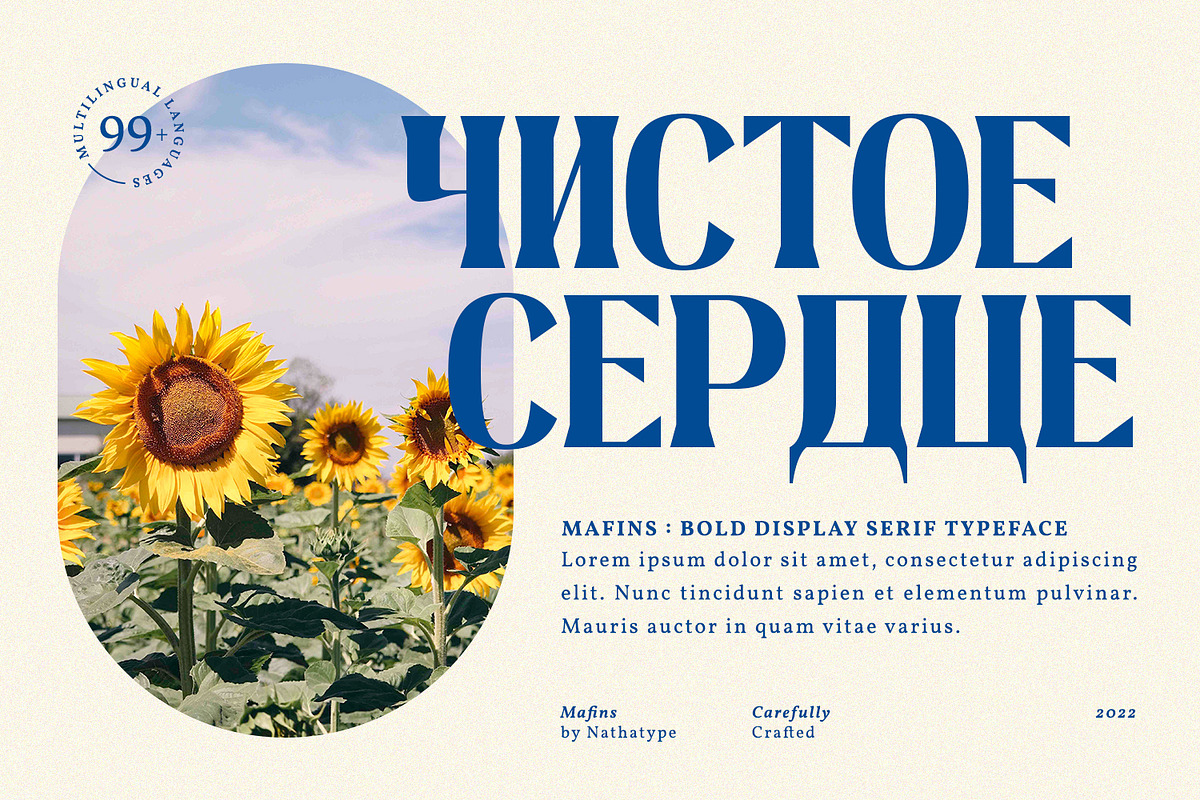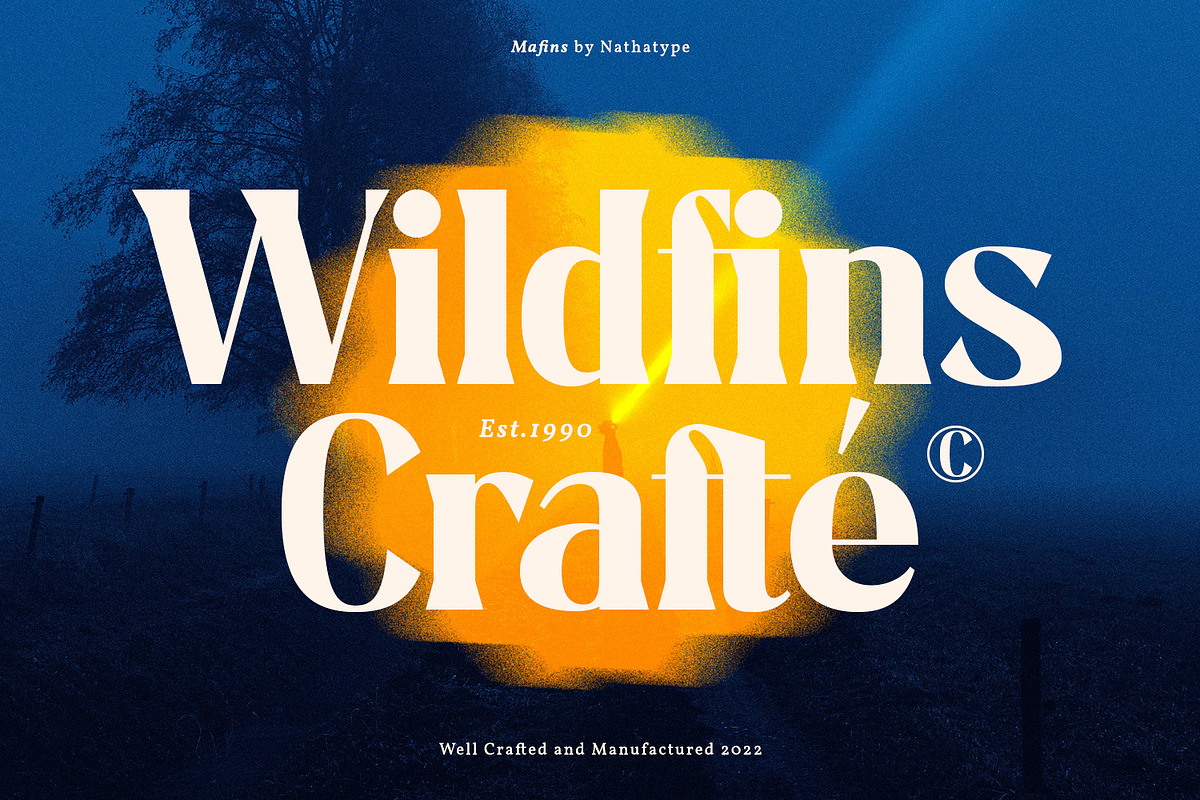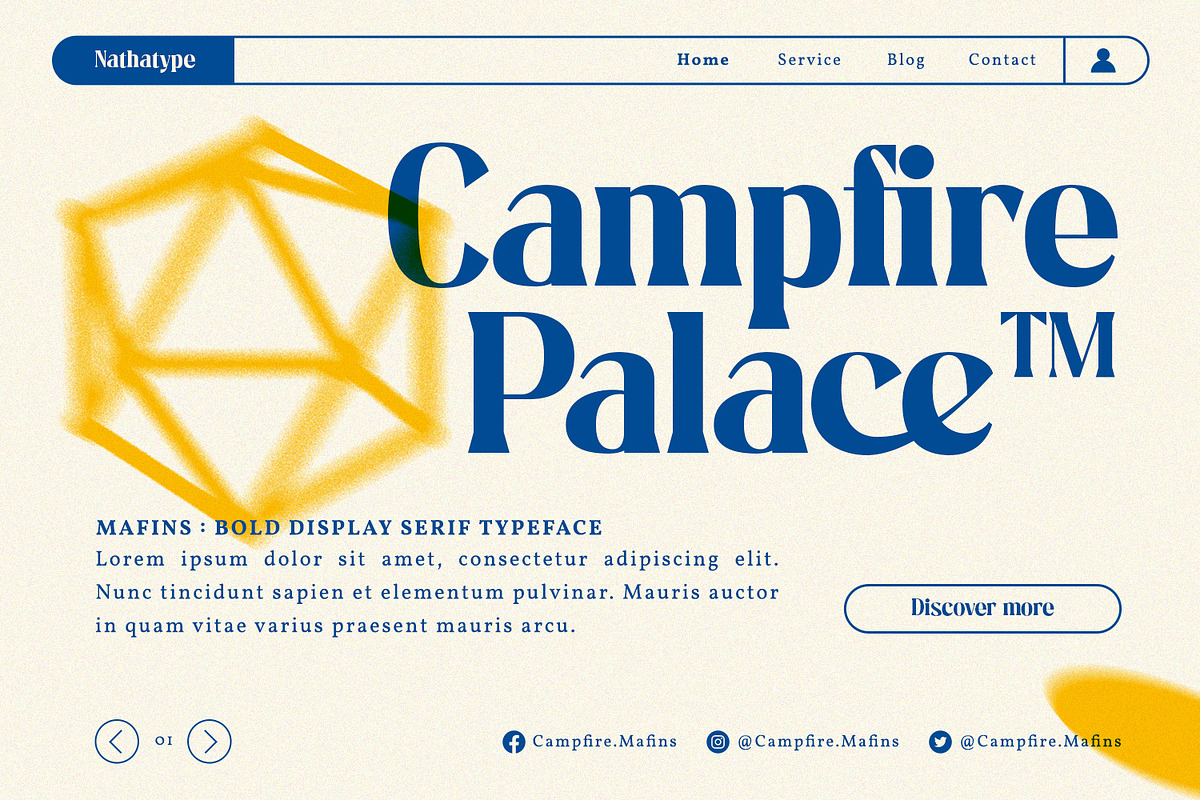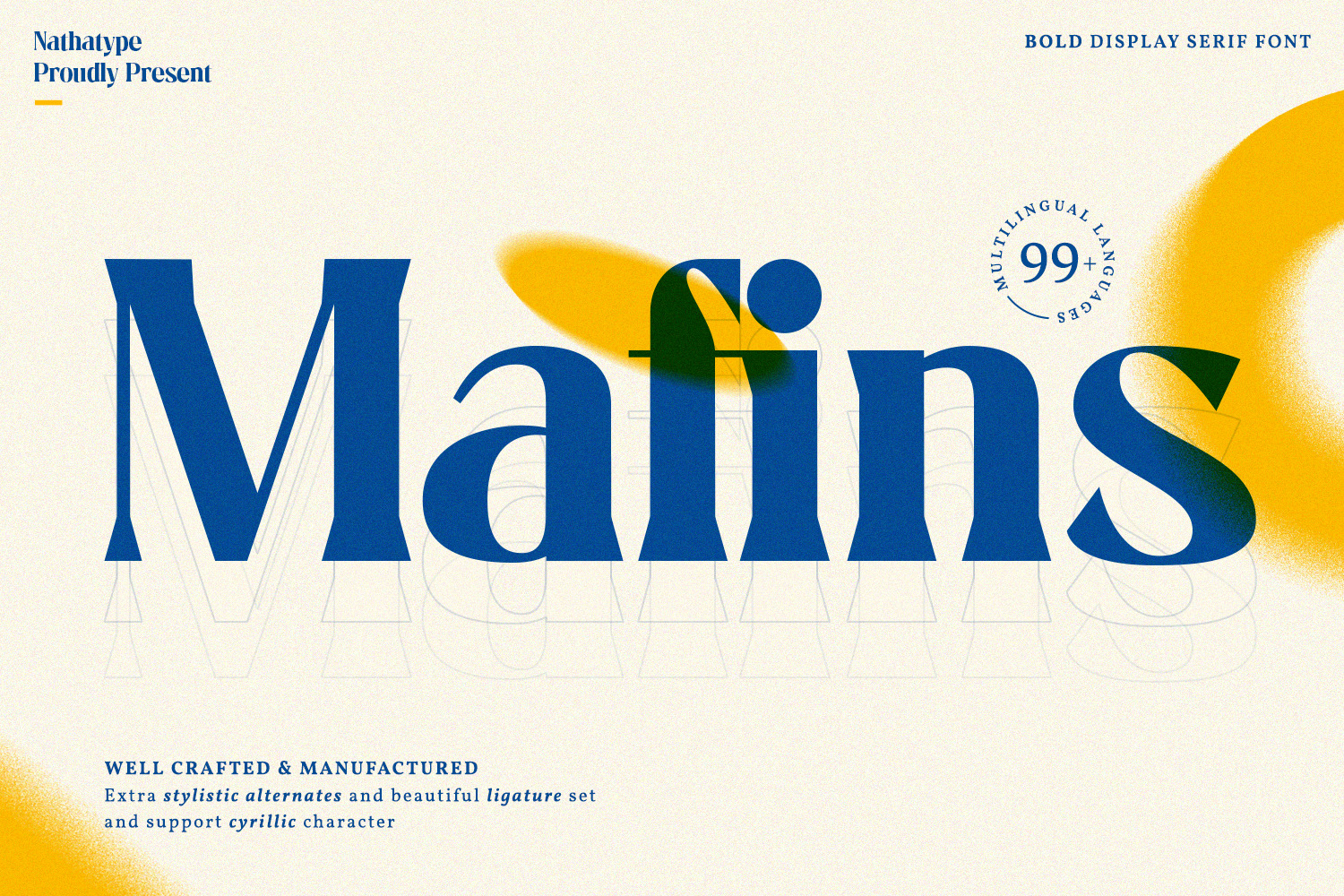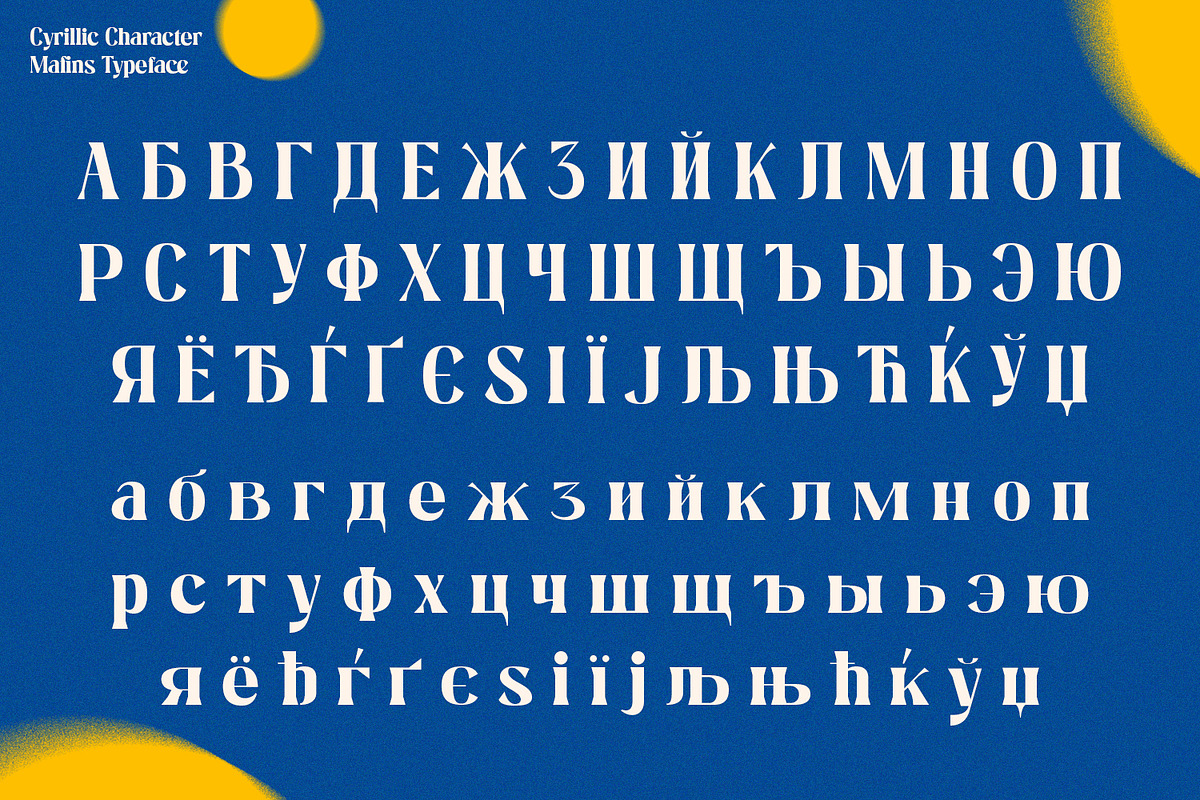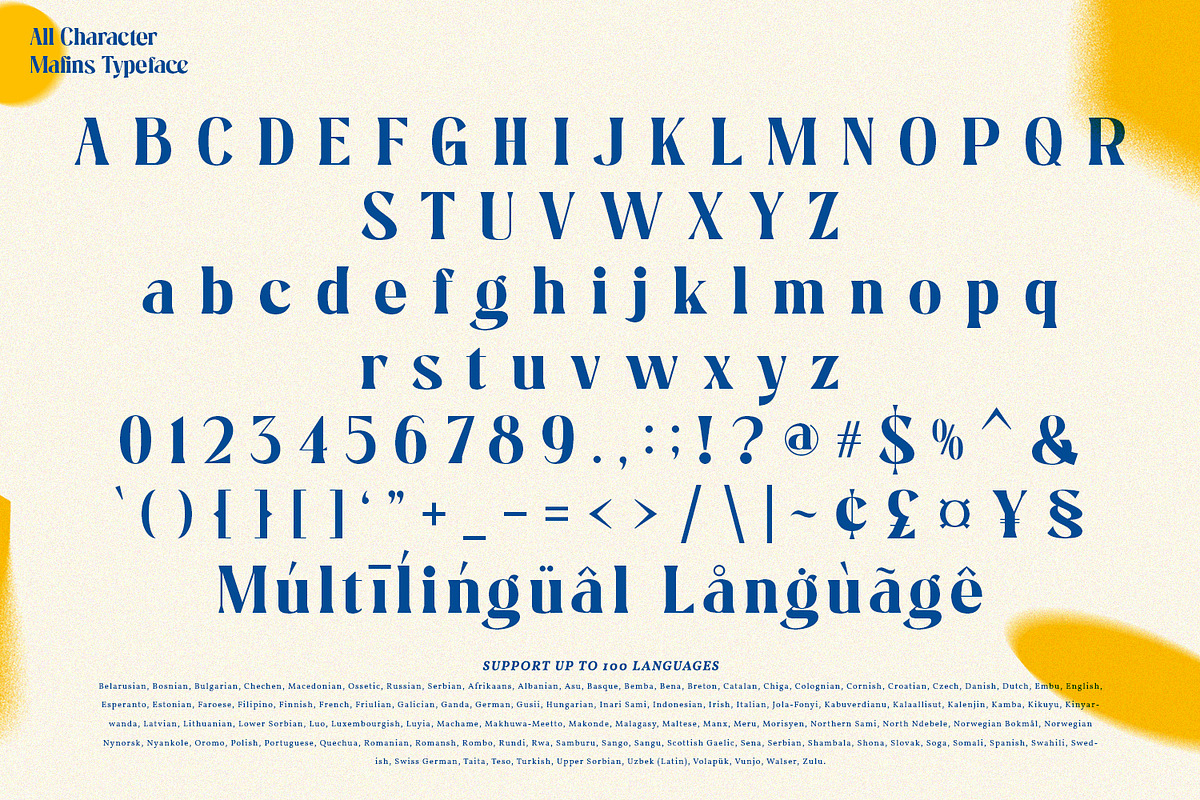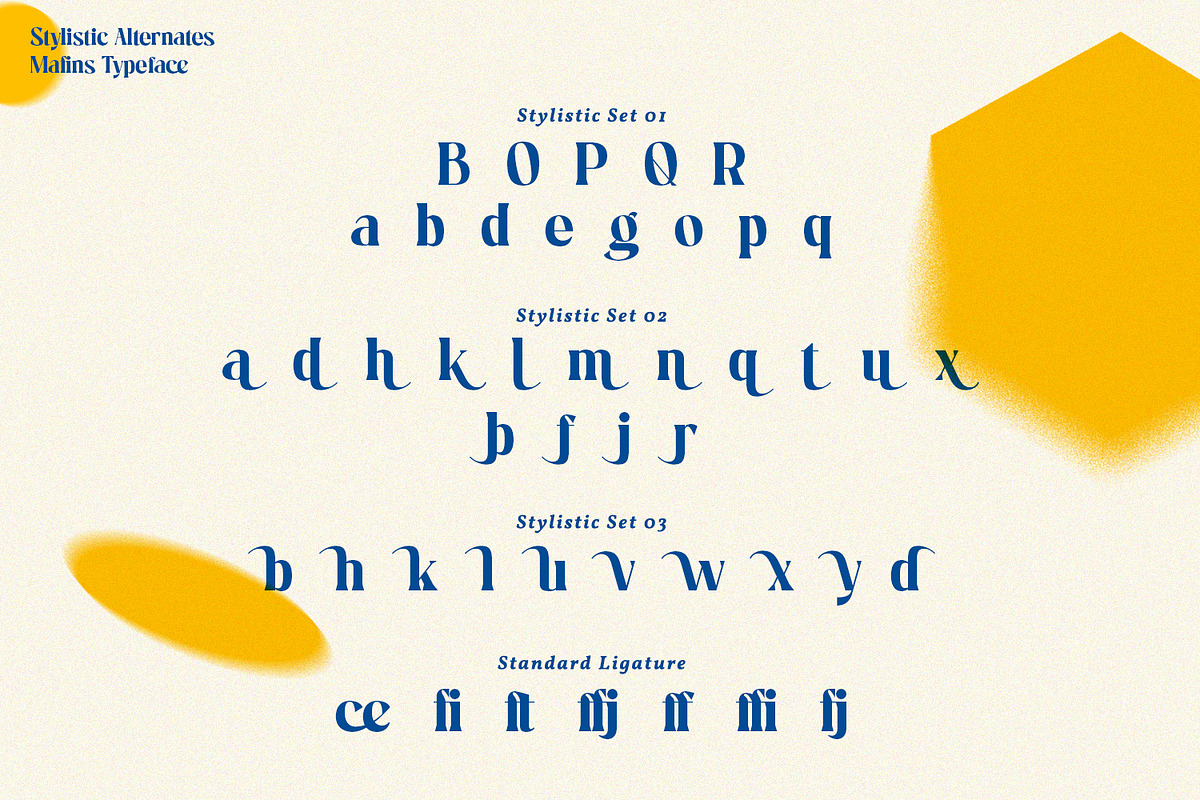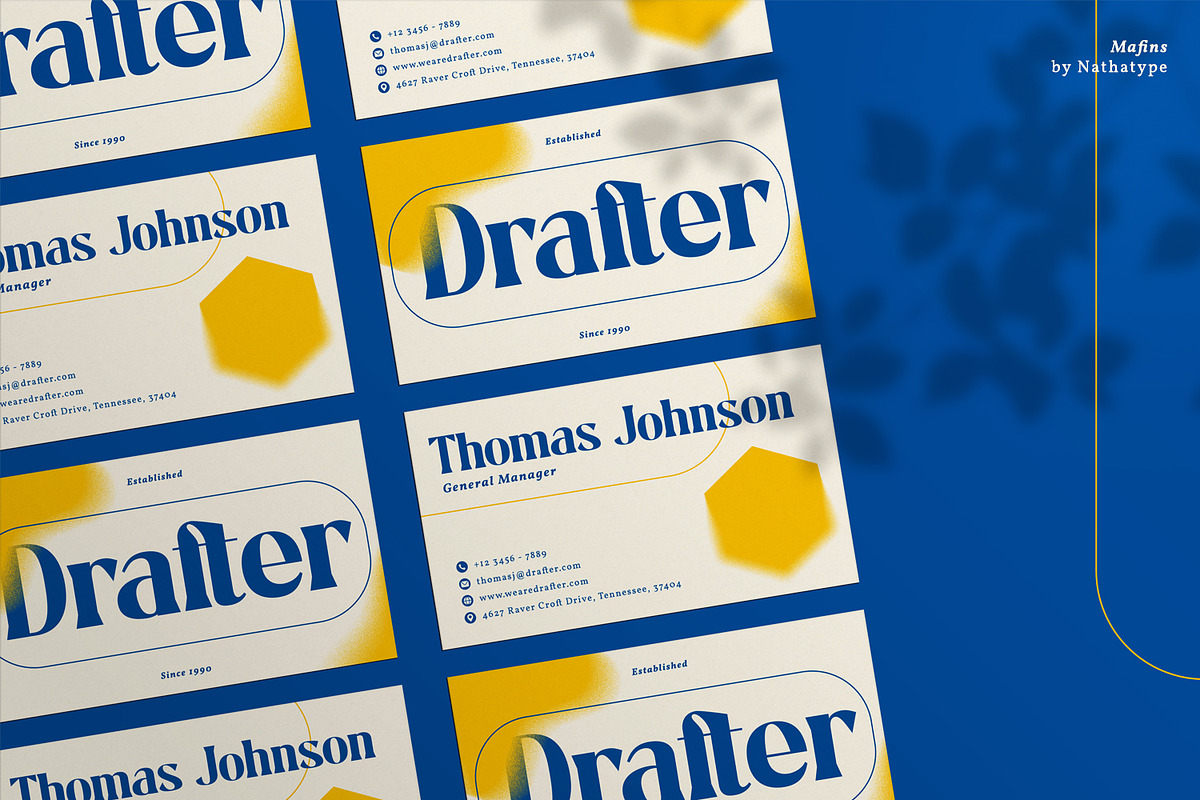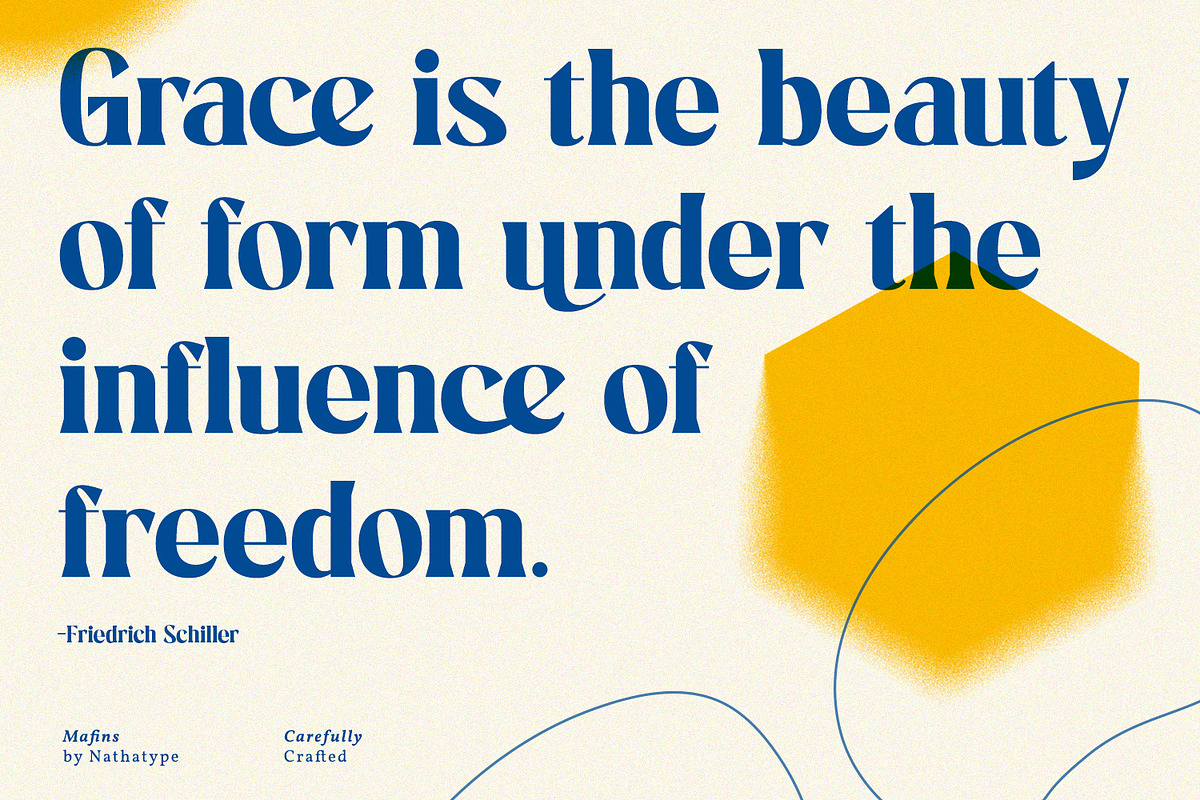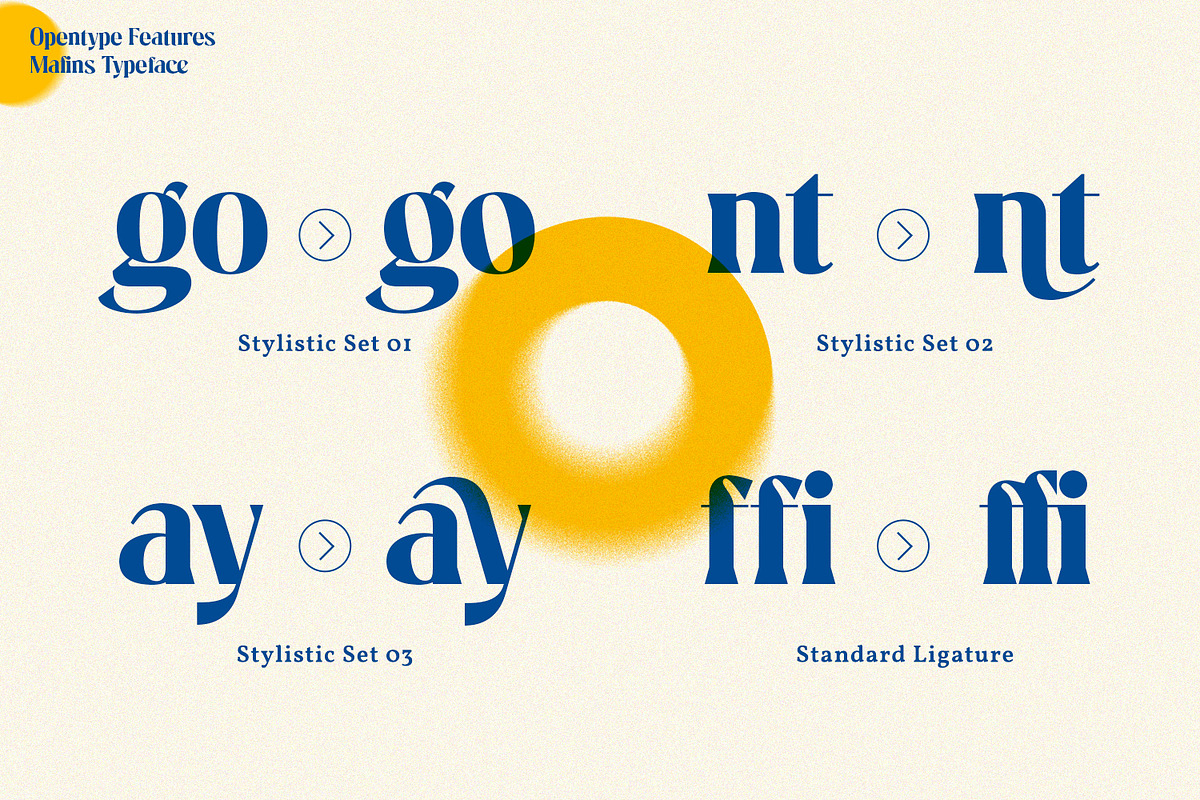
Mafins-Serif Font Family (Updated)
Mafins is a combination font of thick display and serif fonts which is simply designed in formal, modern, elegant impressions like other serif fonts. The differences between the thick and thin lines on each character is dramatic and the letters' edges have small hooks for a legibility reason. Due to the great legibility, you can use this font for any text sizes. Make your every design perfect with Mafins font to create the best impressions on your designs.
- Stylistic Sets
Mafins fits for various design projects, such as posters, banners, logos, magazine covers, quotes, name cards, invitations, headings, printed products, merchandise, social media, etc. Find out more ways to use this font by taking a look at the font preview.